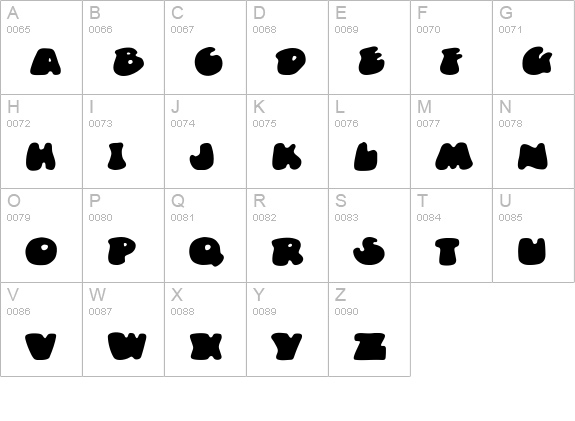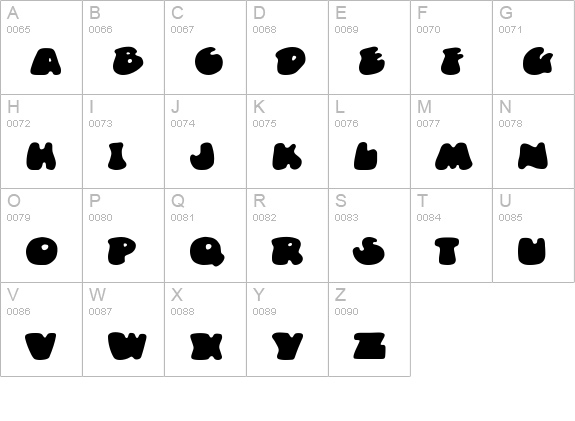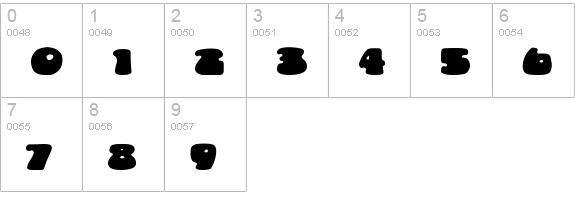
DunceCap BB Font Details
DunceCap BB font is a quirky and fun display font that is perfect for adding a touch of whimsy to your projects. With its bold and playful design, this font is sure to stand out and make a statement. Whether you're creating posters, invitations, or social media graphics, DunceCap BB font is the perfect choice for adding a touch of creativity. Best of all, this font is available for free download at FontsMarket.com, making it easily accessible for all your design needs. Let your imagination run wild with DunceCap BB font and bring your projects to life with its unique charm and character.